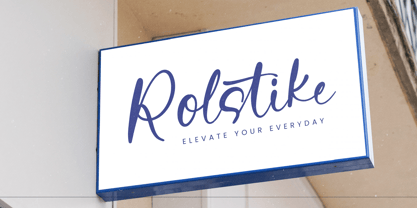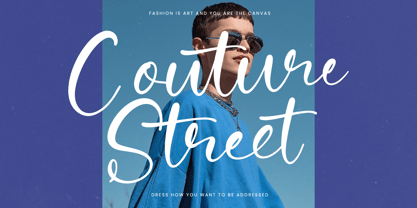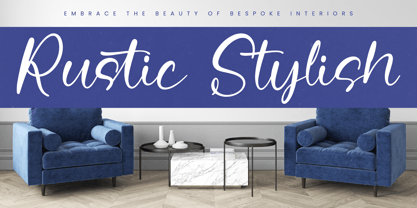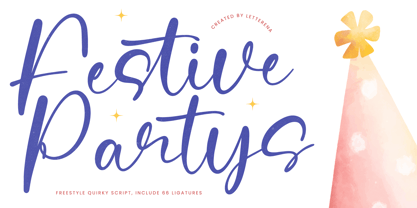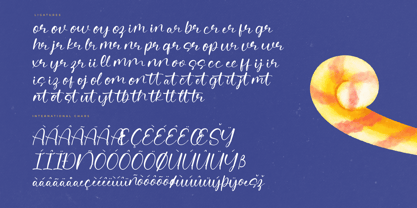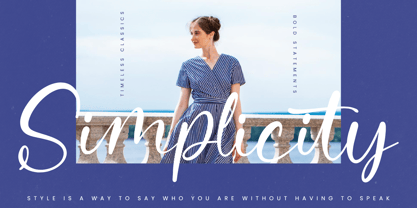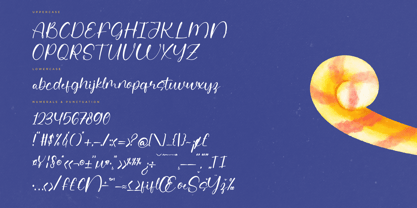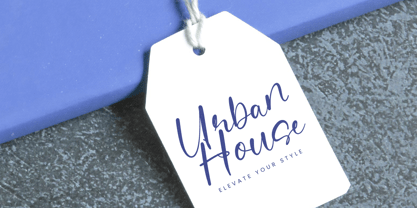
Festive Partys
The Festive Partys Font Family was designed by Heru Utama Putra and published by Letterena Studios. Festive Partys contains 2 styles and family package options. More about this family
Festive Partys – Freestyle Quirky Script , from Letterena, is a Luxury Script font, suitable for any projects such as: logos, branding projects, homeware designs, product packaging, mugs, quotes, posters, shopping bags, t-shirts, book covers, name card, invitation cards, greeting cards, label, photography, watermark, special events, and all your other luxury and beautiful projects that need a Luxury Script taste.